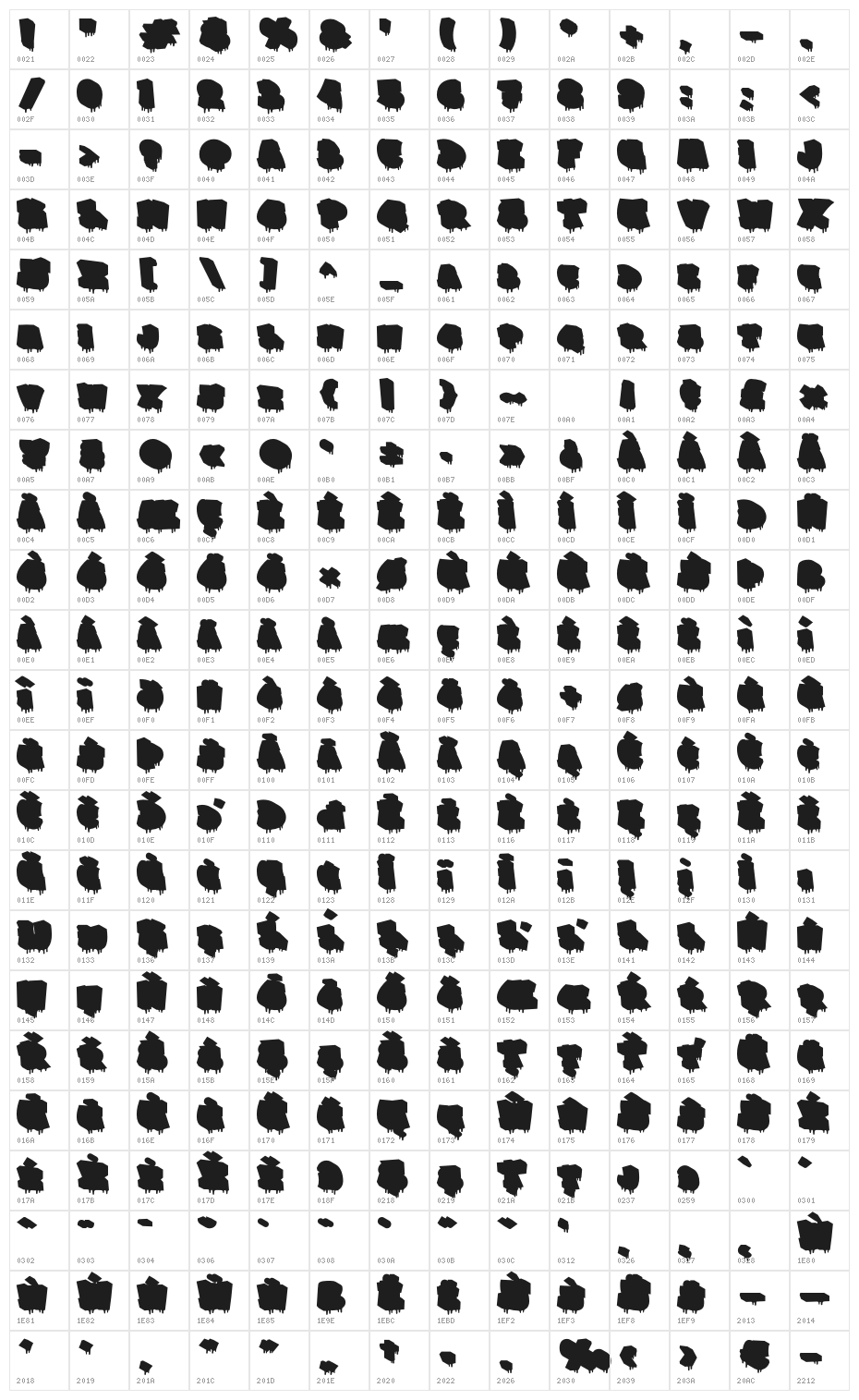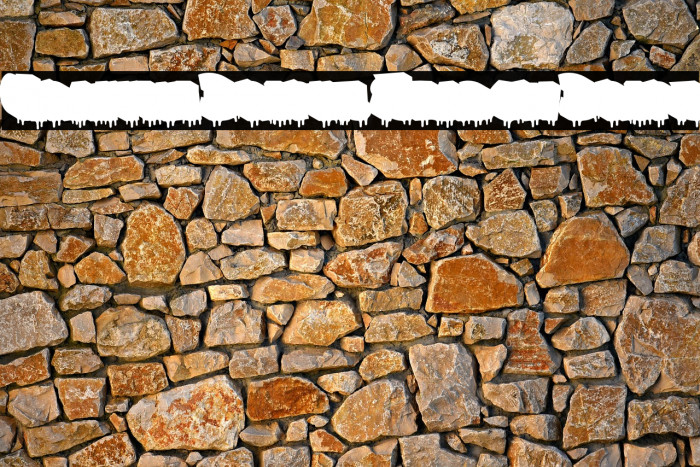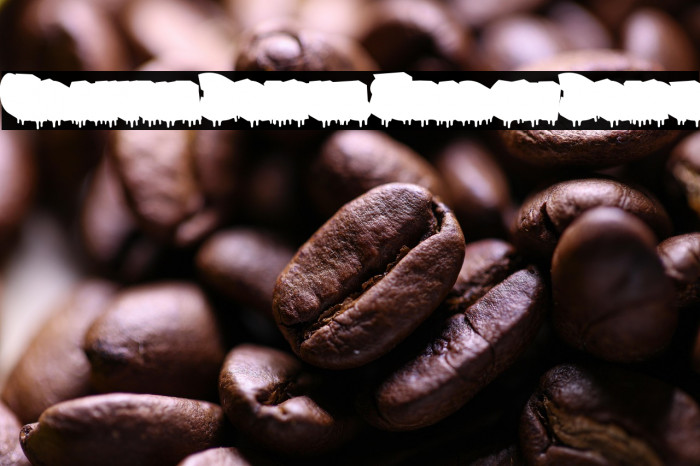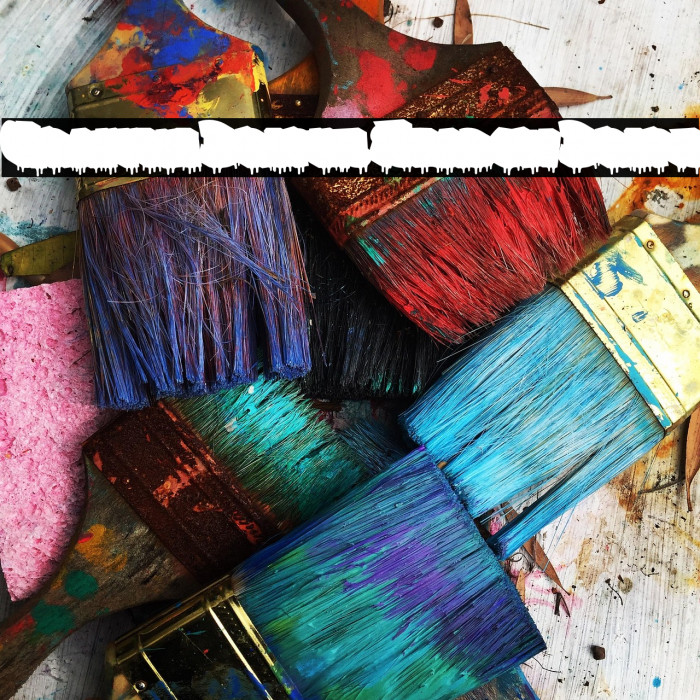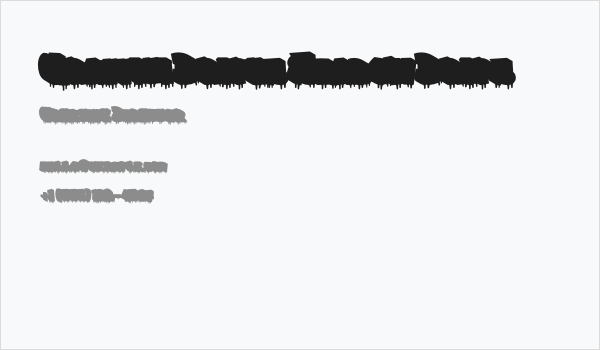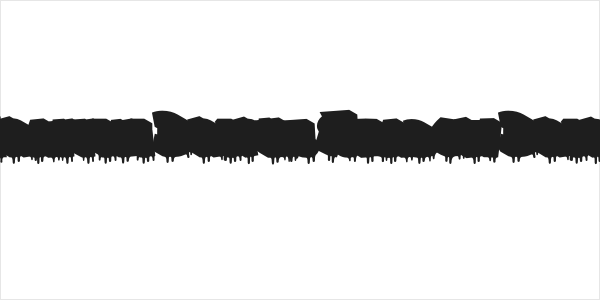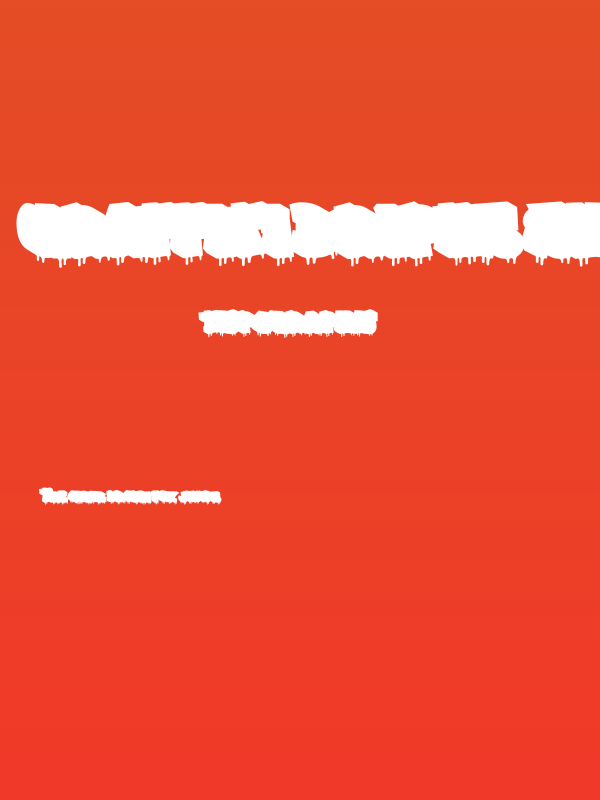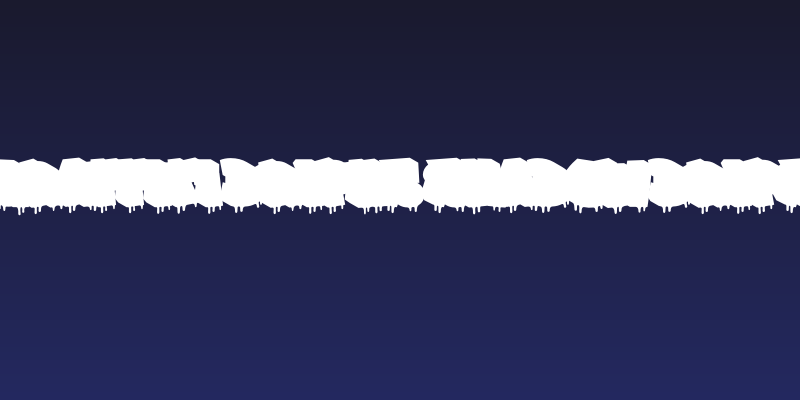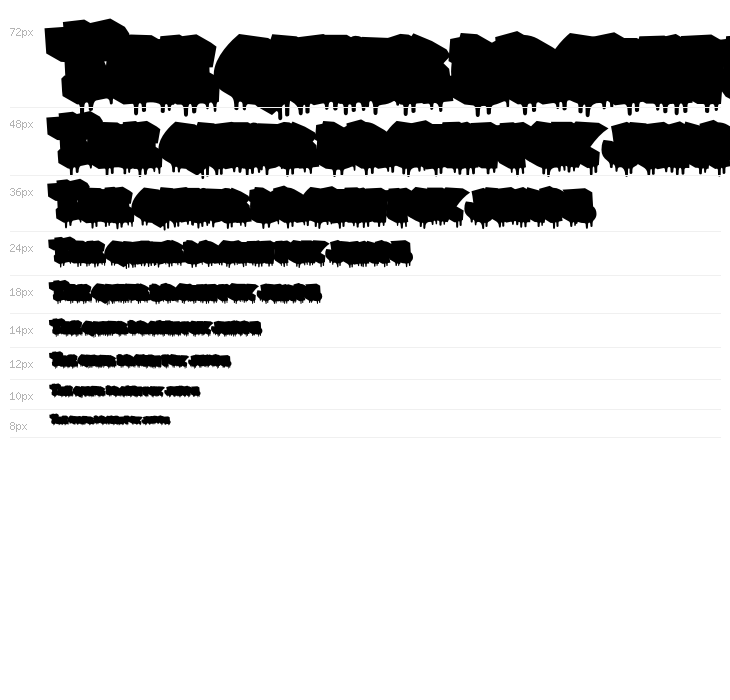
Graffiti Dripes Shadow Drips Font
Graffiti Dripes Shadow Drips Description
This font features a bold, graffiti-inspired style with a distinctive dripping effect that mimics paint or ink running down a surface. The letters are heavily shadowed, creating a three-dimensional appearance that adds depth and texture. The overall design is edgy and urban, capturing the essence of street art. Each character is uniquely crafted, with irregular edges and a dynamic flow that suggests movement and spontaneity. The font's boldness and artistic flair make it stand out, ideal for creative projects that require a strong visual impact.
| Overall Style | Urban, Edgy, Artistic |
| Proposed Projects | Ideal for street art designs, urban-themed posters, music album covers, and edgy branding projects. |